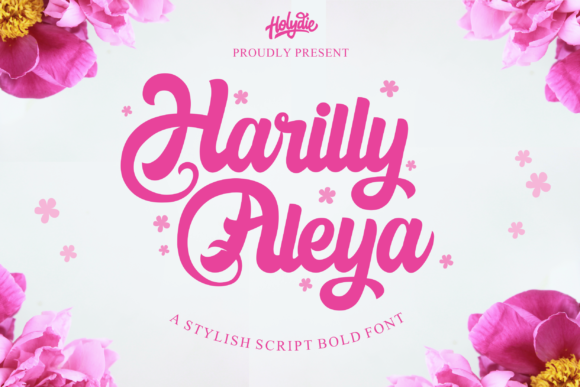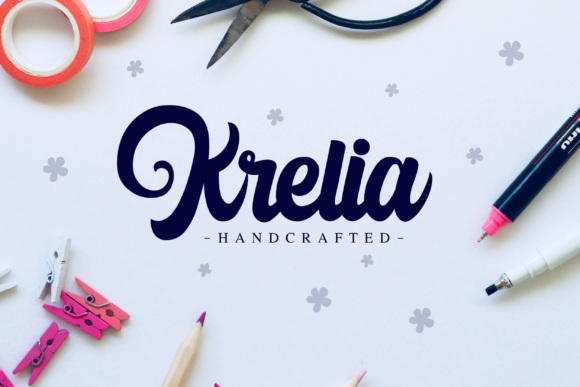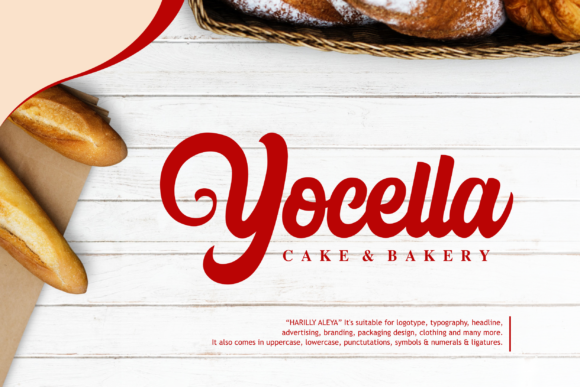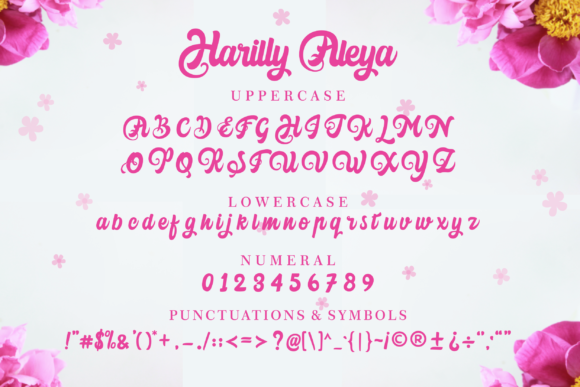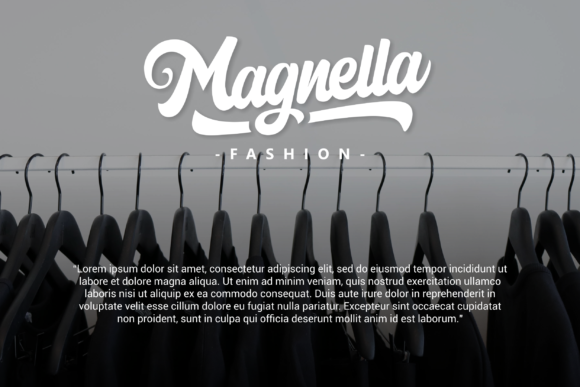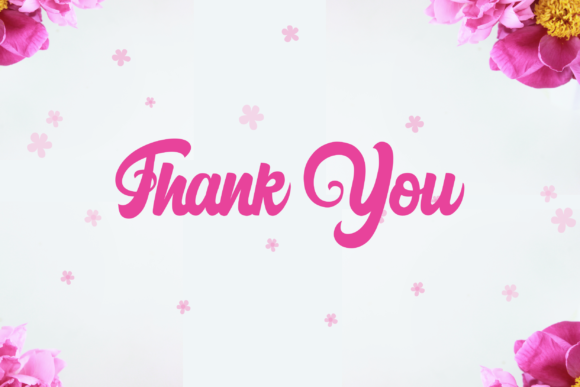
HomeScript FontsHarilly Aleya Font Script Fonts Harilly Aleya Font FacebookXPinterestWhatsApp Harilly Aleya Font Poster 2 Harilly Aleya Font Poster 3 Harilly Aleya Font Poster 4 Harilly Aleya Font Poster 5 Harilly Aleya Font Poster 6 About Harilly Aleya Font Harilly Aleya is a bold font with a romantic twist. It will add a touch of elegance to any craft project! DOWNLOAD NOW People also explored Carolinos Font Aurisha Script Font Julistta Font Flower Vase Font The Mainstay Font Siabella Font Aniversary Font Angie Font Camilla Font 332 0 TagsHarilly Aleya Font Previous articleWillford FontNext articleHalmahera Island Font LEAVE A REPLY Cancel reply Comment: Please enter your comment! Name:* Please enter your name here Email:* You have entered an incorrect email address! Please enter your email address here Website: Save my name, email, and website in this browser for the next time I comment. Personal Use Free Andolas Personal Use Free Read more about this font Amelline Personal Use Free Read more about this font Arabella Script Personal Use Free Read more about this font First Be Lucky Personal Use Free Read more about this font BLOG The 10 Best Handwriting Fonts to Add Personality to Your Designs 10 of the Best Handwriting Fonts for Adding Personality to Your Designs There will undoubtedly be no other better choice than handwriting fonts to give... Free Fonts Risk: Why Free Fonts Can Be Dangerous for Designers To increase your work productivity, choose the most readable fonts. Fonts That Capture the Spirit of New York City